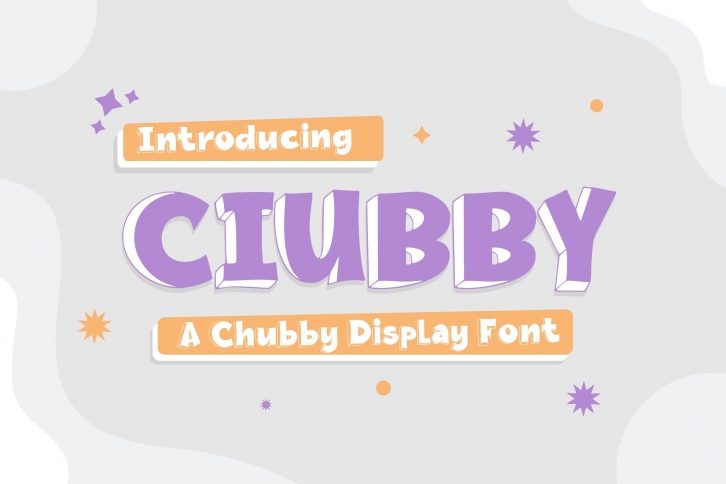
3D is a trendy and unique font with an authentic style. It was designed by flat and it's a great choice for creative people who need such a font. It was released on August 16, 2022 and the file size is 16.89 MB. 3D will add an organic vibe to any design idea!